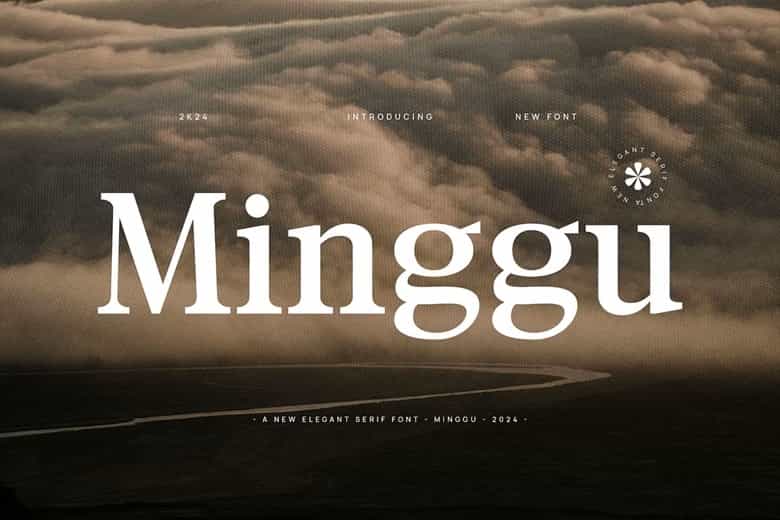
Minggu is a modern, luxurious serif typeface with a very sophisticated and a timeless character. It contains isolated sharp lines with soft curves, and is perfect as high-end branding, editorials, and packaging. The traditional and the contemporary design give it a regal poise that makes any eye candy look good.